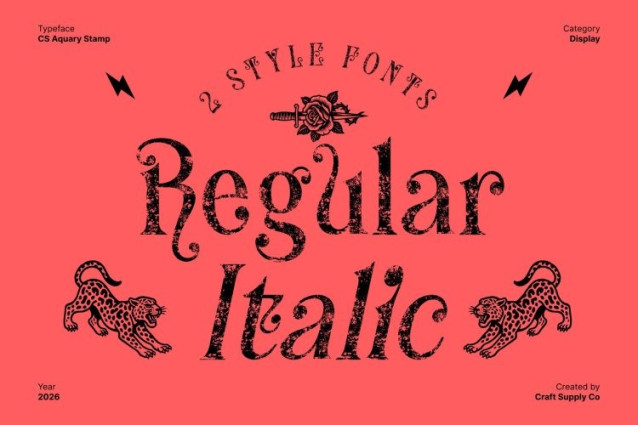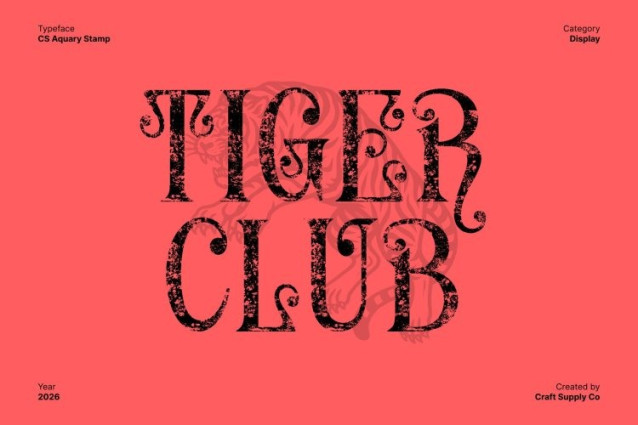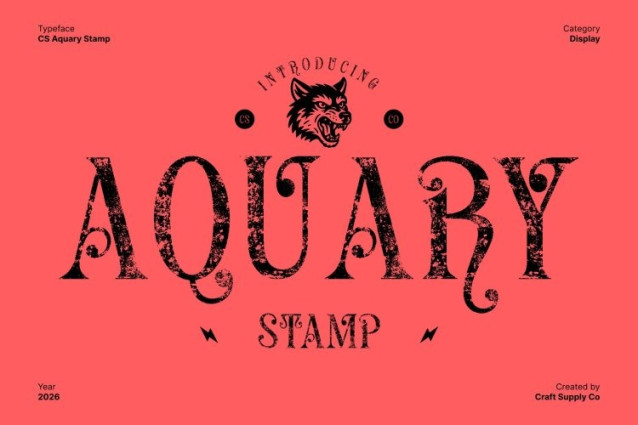
CS Aquary Stamp Font
CS Aquary Stamp Font This is a fantasy display serif font crafted to bring enchantment, imagination, and elegance into your designs. Its elaborate letterforms are filled with whimsical energy, combining decorative serifs and expressive curves that evoke fairy tales, legends, and magical worlds. The overall form feels rich, dramatic, and visually captivating.
Intricate Curves with Fantastical Details
Each character features intricate curves and fantastical motifs that enhance its storytelling quality. The ornamental structure gives the font a mystical rhythm, while the detailed shapes create a sense of wonder and creativity. These imaginative letterforms make feel alive perfect for designs that aim to transport viewers into a magical narrative.
Vintage Stamp Texture with Artistic Depth
The stamped texture introduces a vintage character that adds depth, warmth, and authenticity to the font. Subtle imperfections and distressed details create an aged, handcrafted appearance, giving the fantasy style an old-world, storybook quality. This artistic texture enhances the font’s charm, making it feel timeless and tactile rather than overly polished.
Perfect for Magical and Creative Projects
This is ideal for fantasy book covers, movie posters, game titles, themed branding, and imaginative visual projects. Its blend of ornate fantasy design and vintage stamped texture ensures every composition feels enchanting, expressive, and unforgettable bringing magic, elegance, and artistic character into every design.